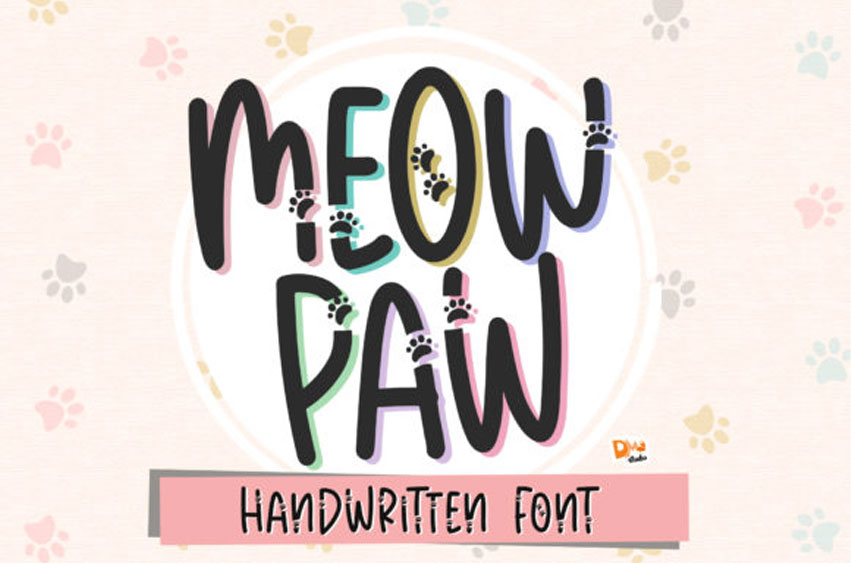
Meow Paw Font
Meow Paw Font is a cute and quirky display font. It will add an incredibly joyful touch to your designs.
Add this beautiful display font to each of your creative ideas and notice how it makes them stand out!